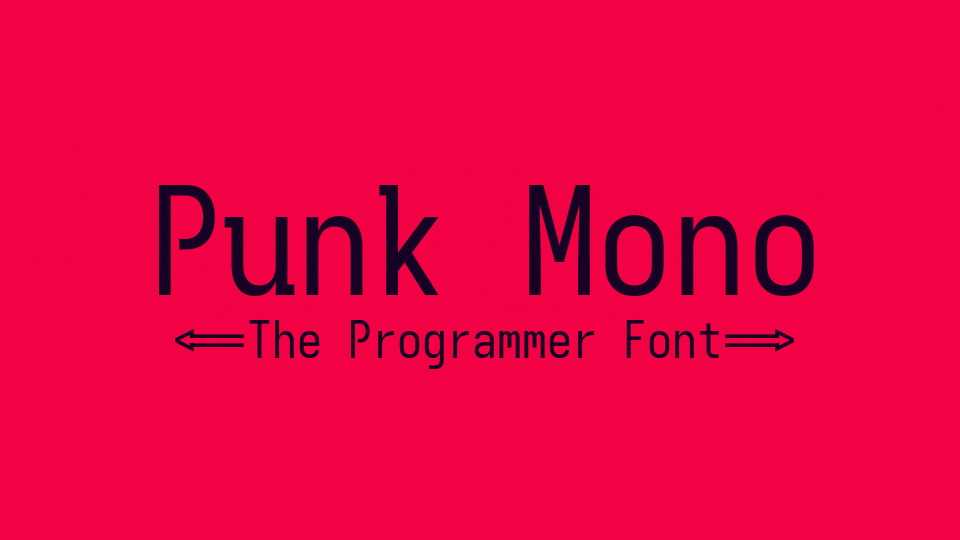
Download Punk Mono font, a monospace typeface, it’s a custom build of Iosevka font. Punk Mono focuses on simplicity, readability, and style.
Designer: Belleve Invis